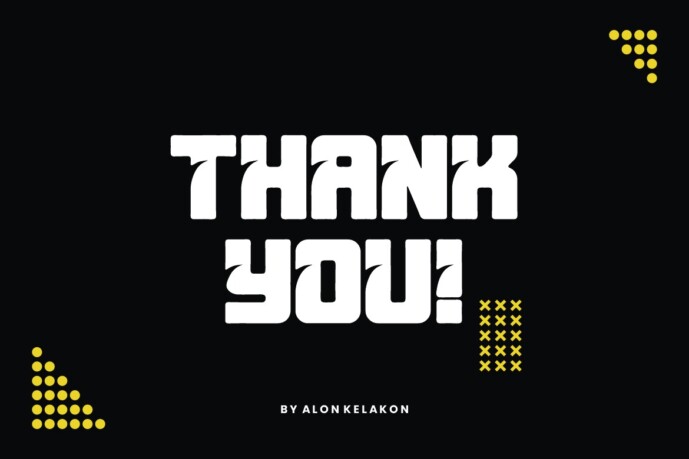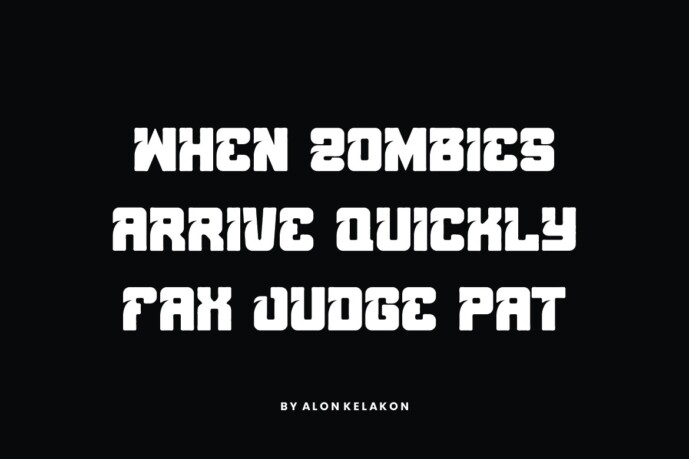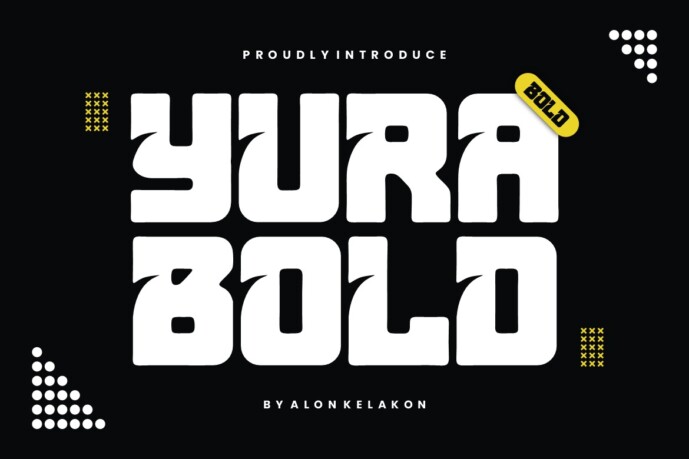
Yurabold Font
Designer: alonkelakon
Yurabold Font is unique. Ready to use for your designs, such as labeling, movie scene, poster, movie title, concerts, album covers, logos and much more.